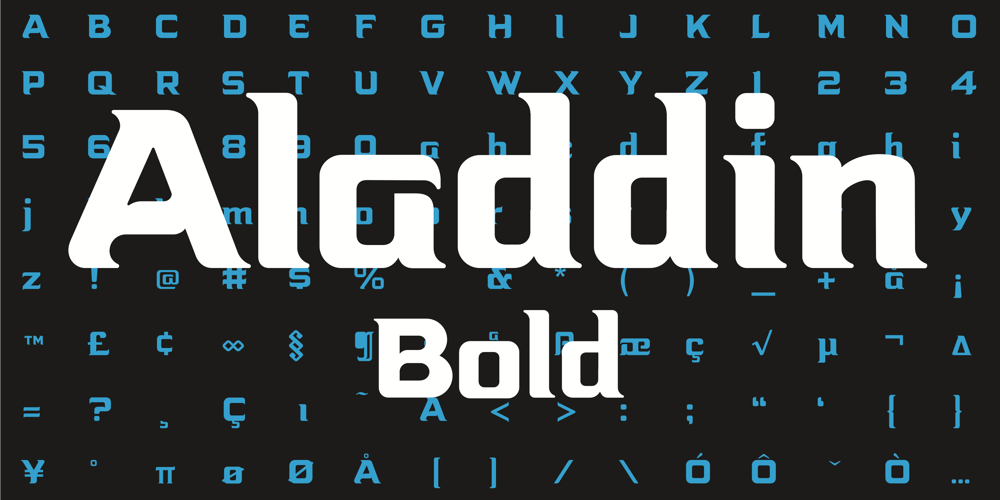
Aladdin Font Family was designed by Tom Nikosey and published by CozyFonts. Aladdin contains 3 styles and family package options. Aladdin Black is the 3rd member of our Aladdin Bold Font Family. This new style is extra bold and slightly rounded on the outsides of the glyphs. It is fat, fancy, fearless, forward, devilish, heavy, and stylized.Aladdin Bold was my first font introduced in 2012. I’ve always felt there were possibilities of adding styles to this family and something triggered the decision, so…here it is. I took much time deliberating over many of the finer details in this version of Aladdin and I hope the ‘devil is in the details’ for whoever decides to try on Aladdin Black.